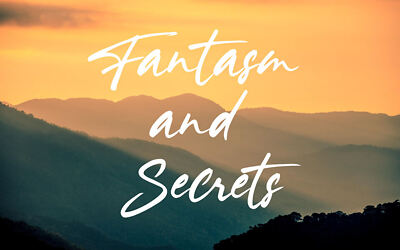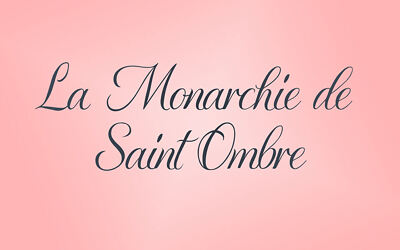
Always in the Star is an elegant, romantic calligraphy script font featuring flowing cursive strokes, delicate loops, and sweeping ascenders. Its graceful handwriting style channels a dreamy, whimsical aesthetic, perfectly suited for wedding invitations, branding, logos, quote art, and celestial-themed designs.